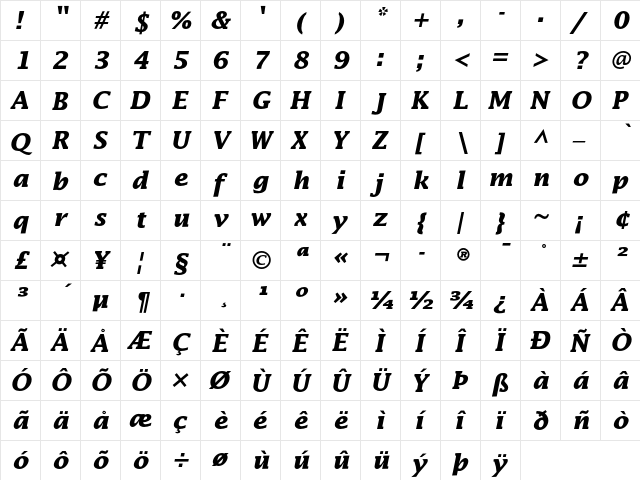
Lucida Bold Italic Font Preview
Design Context for Lucida Typeface
Lucida takes a measured approach to typography — its balanced proportions and neutral character make it a reliable workhorse for both digital and print work. The slanted form adds forward momentum and visual energy. The heavy weight commands attention and anchors typographic hierarchies.
Pro Tip: Try Lucida for annotation and caption copy alongside an upright companion — the contrast in angle creates a dynamic but ordered typographic system.